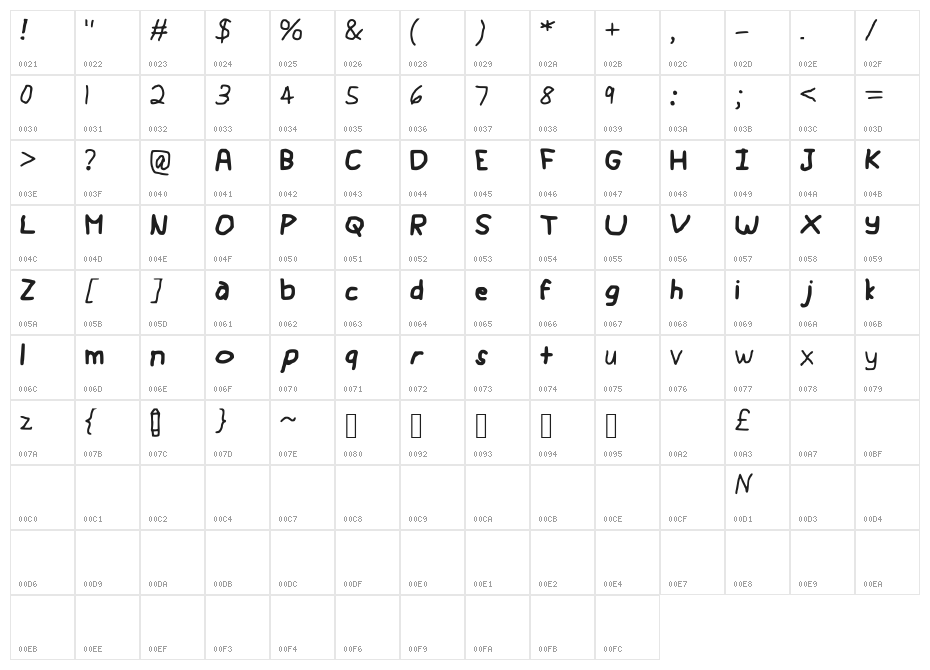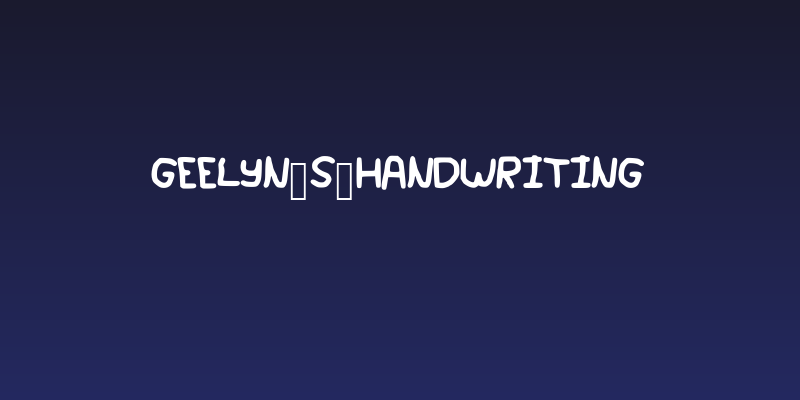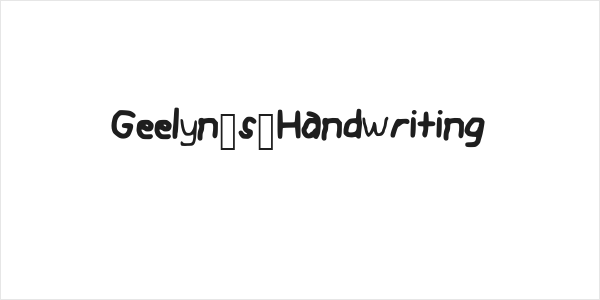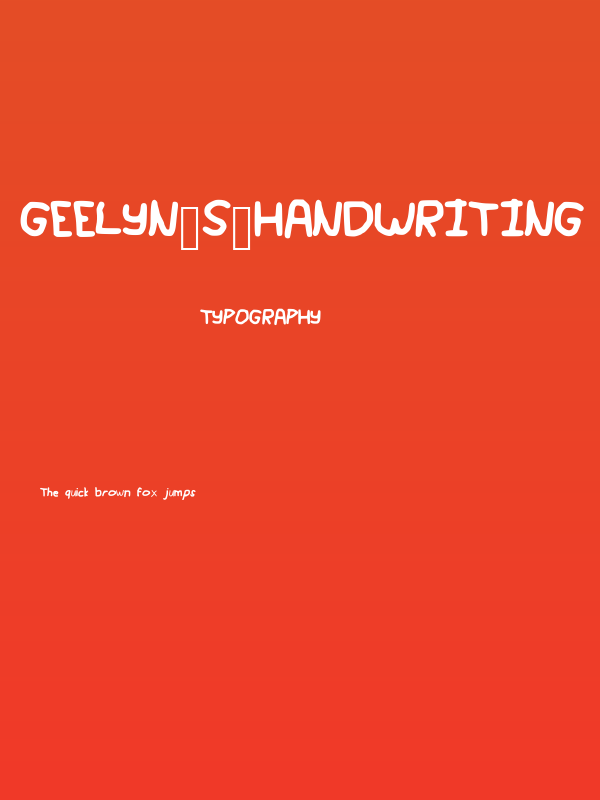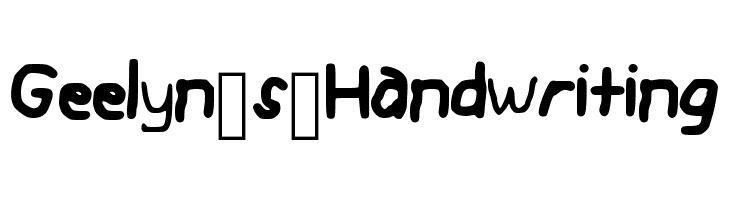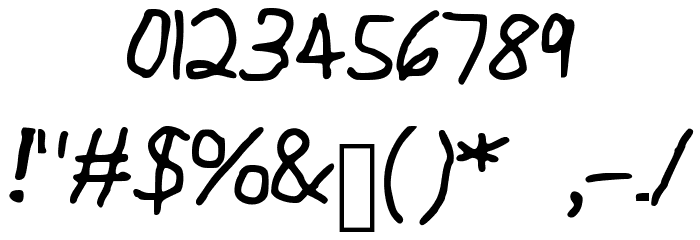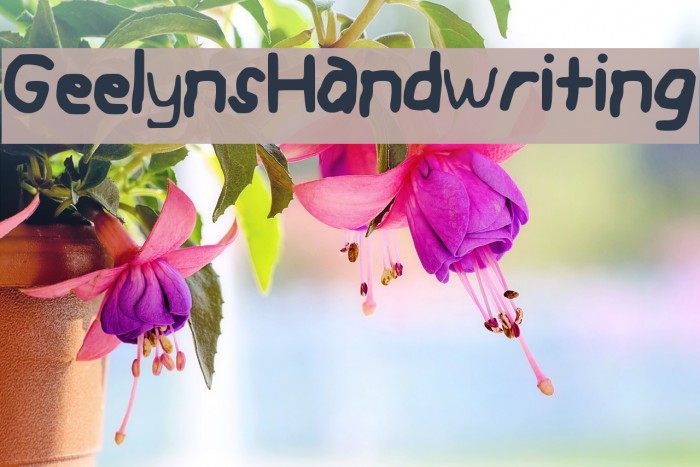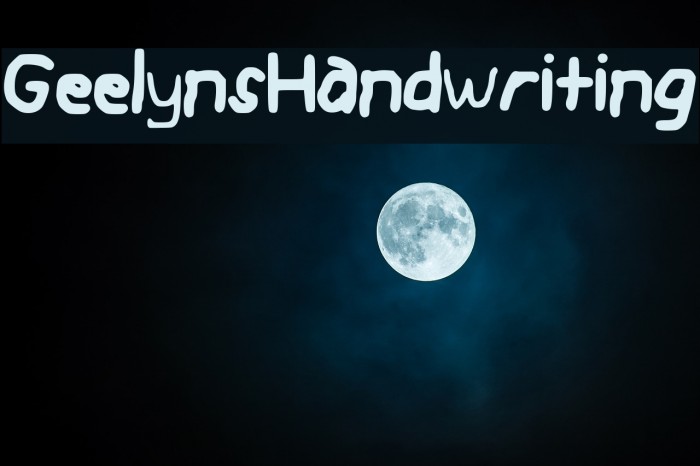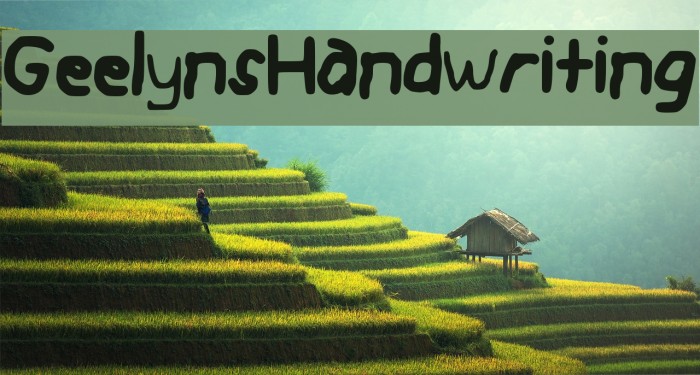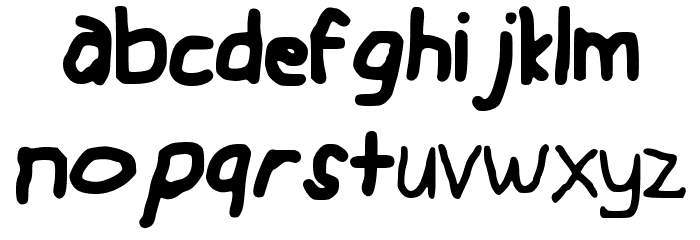
Geelyn_s_Handwriting Font
Geelyn_s_Handwriting Description
This font exudes a playful and casual vibe, reminiscent of handwritten notes with a personal touch. The characters are bold and slightly irregular, giving them a unique charm. The uppercase letters are robust and rounded, while the lowercase letters maintain a consistent flow with a slightly narrower form. Numbers and special characters follow the same playful style, ensuring a cohesive look across all text. This font is perfect for projects that require a friendly and approachable appearance, such as children's books, informal invitations, or creative branding materials.
| Proposed Projects | Ideal for children's books, informal invitations, creative branding, and playful designs. |